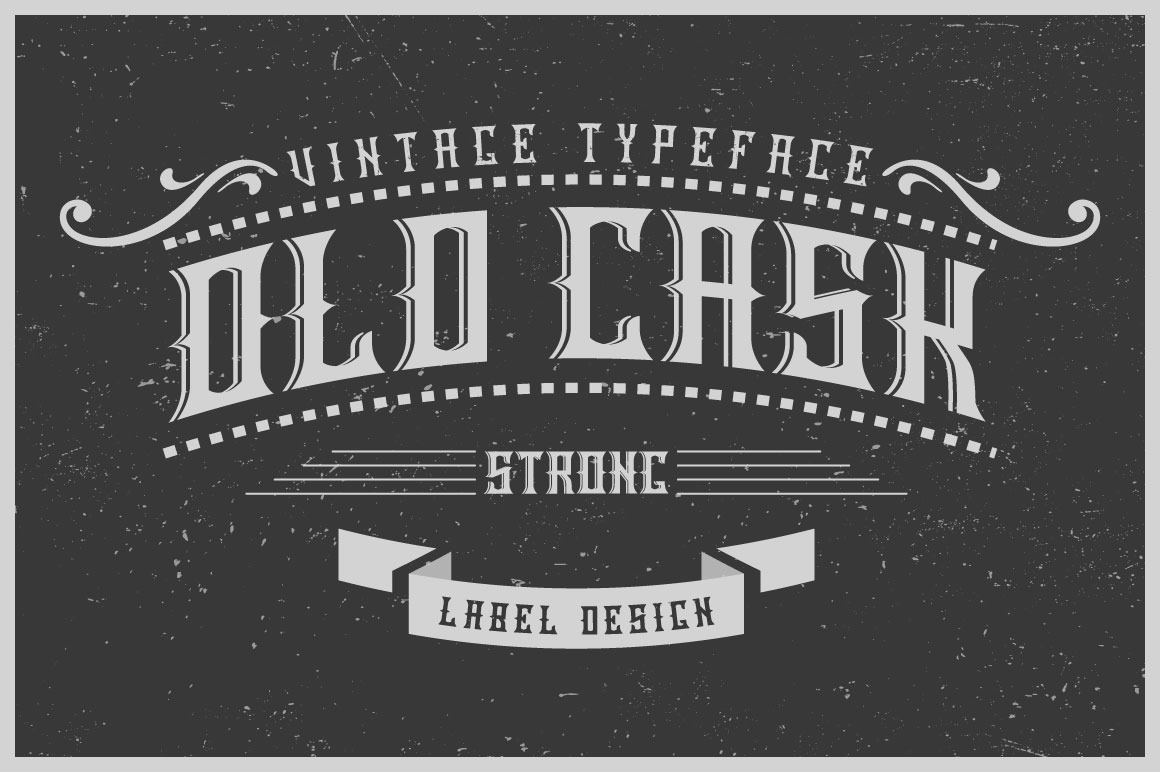
Handcrafted Old Cask label font
Introducing a vintage look label typeface named "Old Cask". It's made in a strong and vintage label style. Typeface is good looking on any labels design.
- 4 fonts in complect with special effects
- You can mix shadow effect as shown at 4-th screenshot